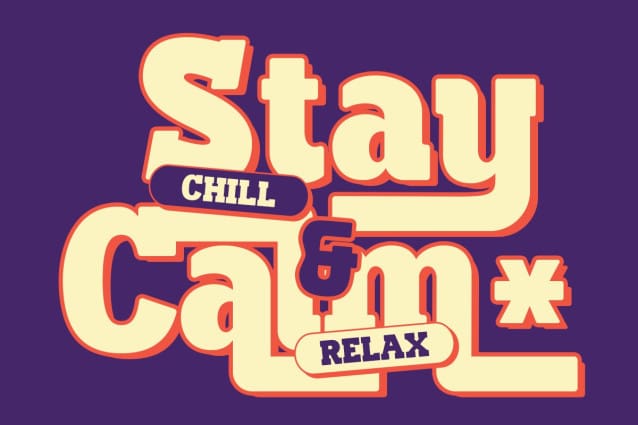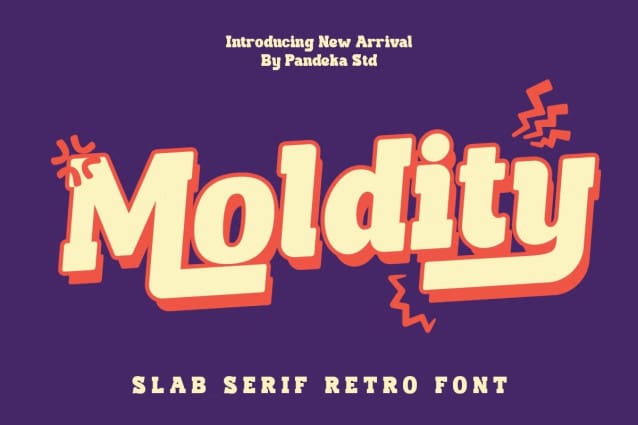
Moldity Font
Moldity Font, a bold retro slab serif font that captures the essence of vintage design. Inspired by the timeless beauty of retro posters, old-school branding, and classic typography, Moldity brings a nostalgic yet fresh vibe to your projects.
Crafted with love and attention to detail, Moldity Font is perfect for giving your designs a touch of retro elegance. Whether you’re working on branding, logos, posters, packaging, or any creative project that needs a bold and vintage flair, Moldity will make your work shine.